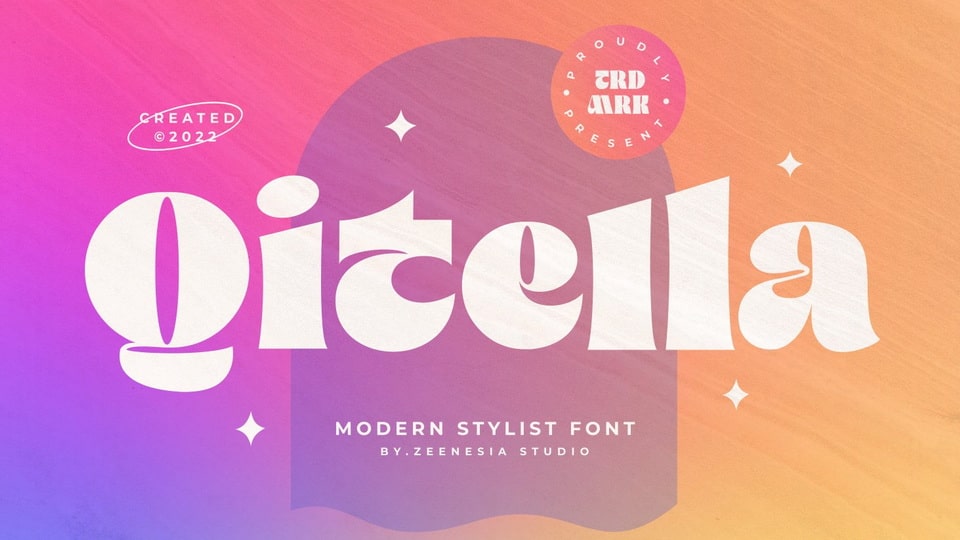
Download Qitella font, a bold style serif typeface with strong character and soft features. Qitella is a very versatile font that works great at large sizes.
Designer: Zeenesia Studio